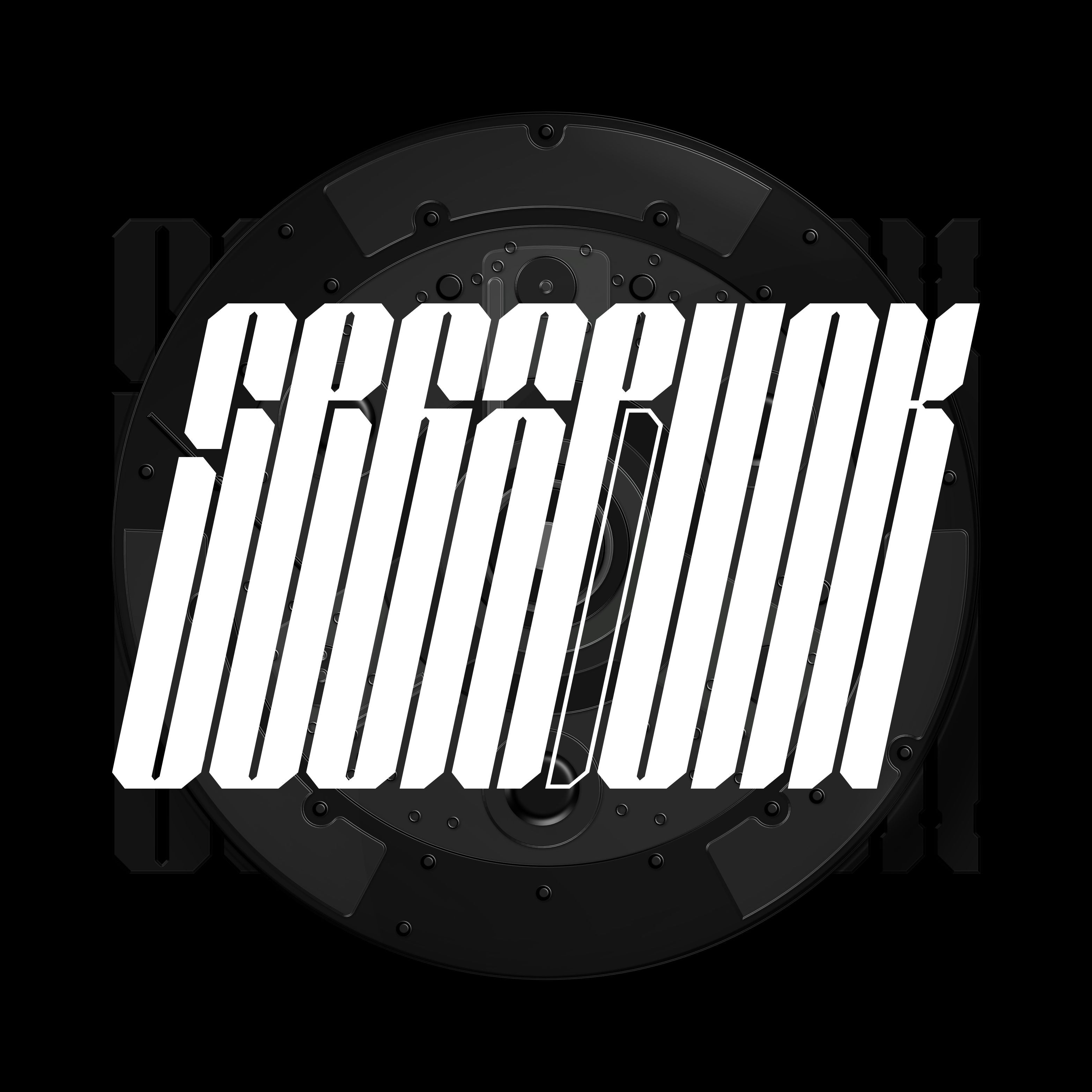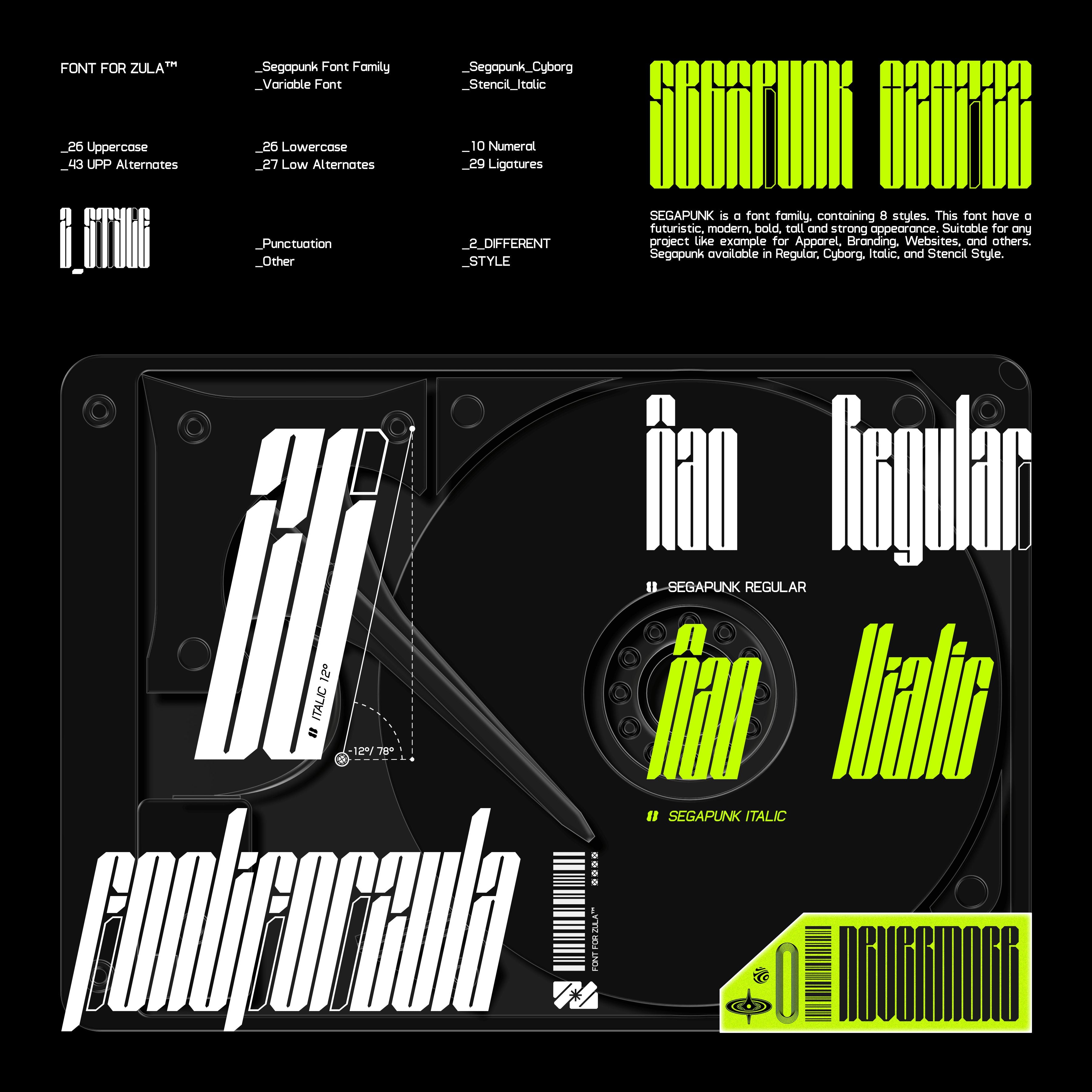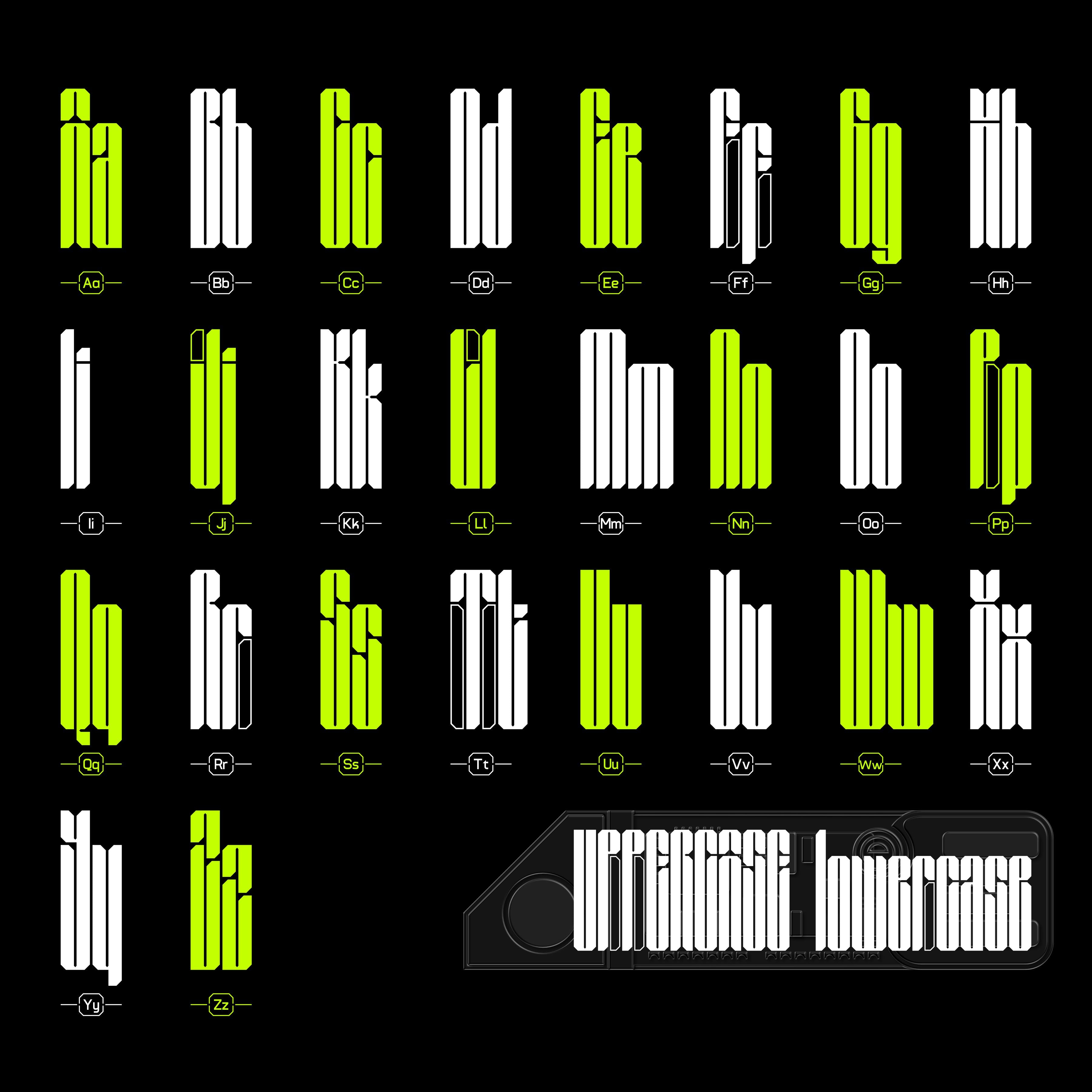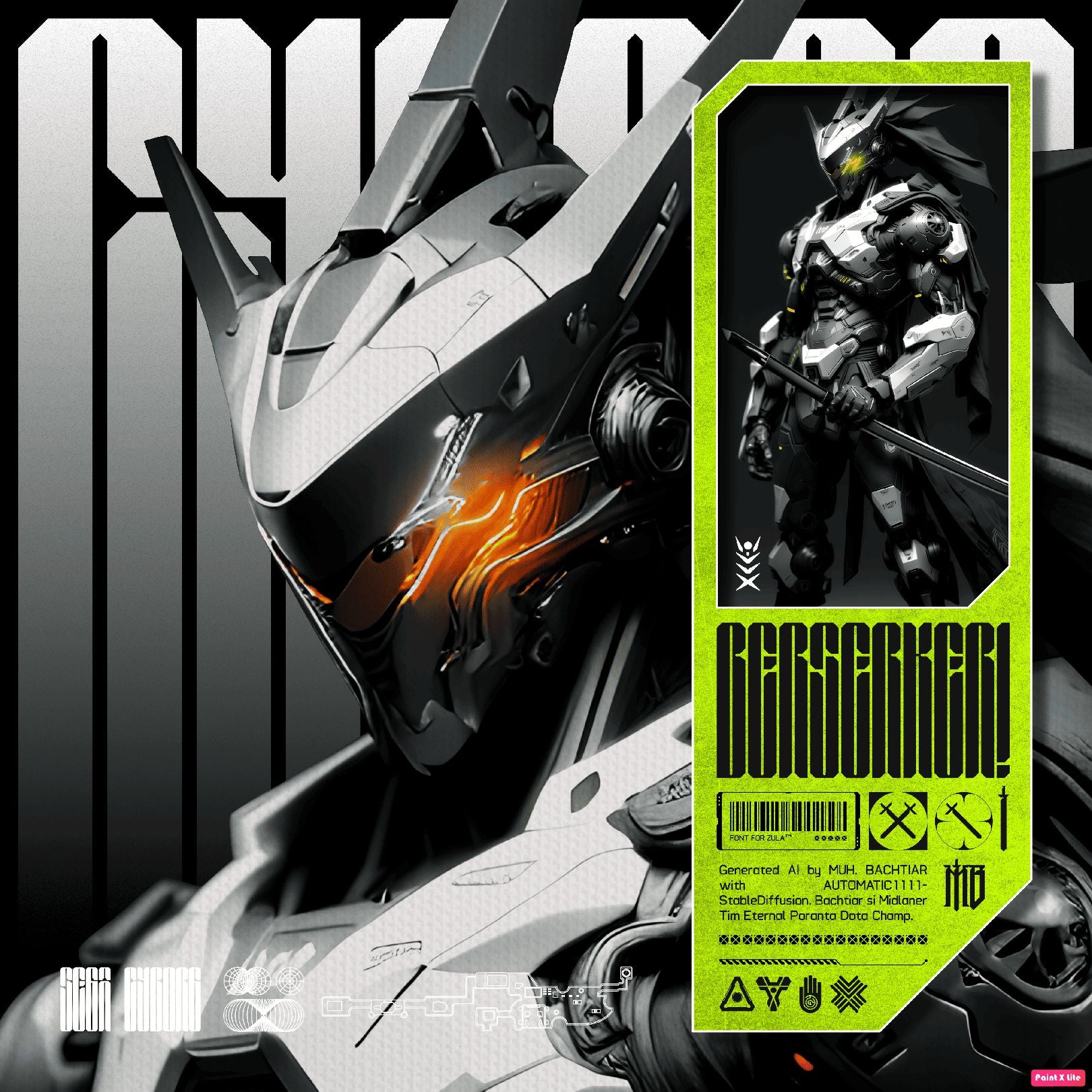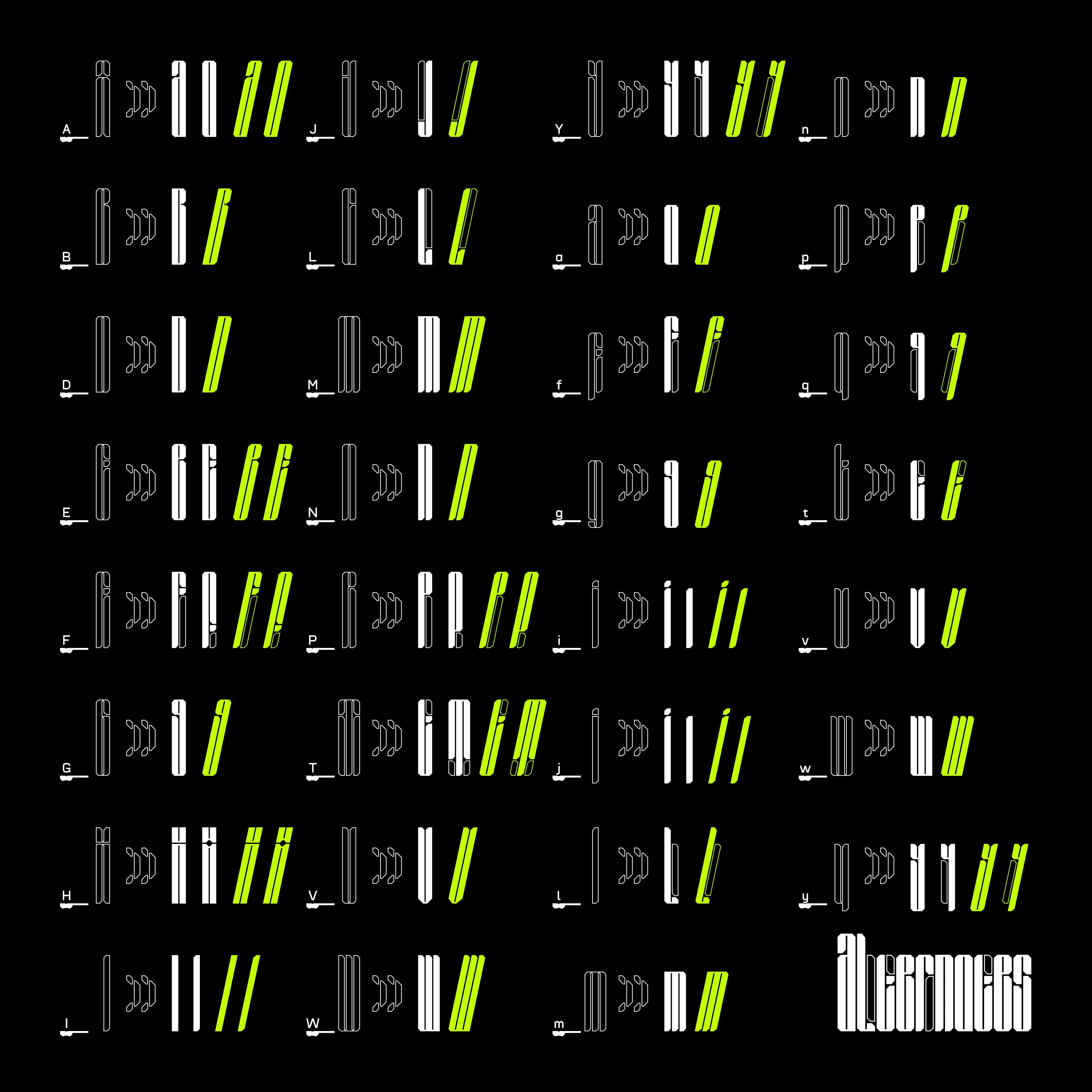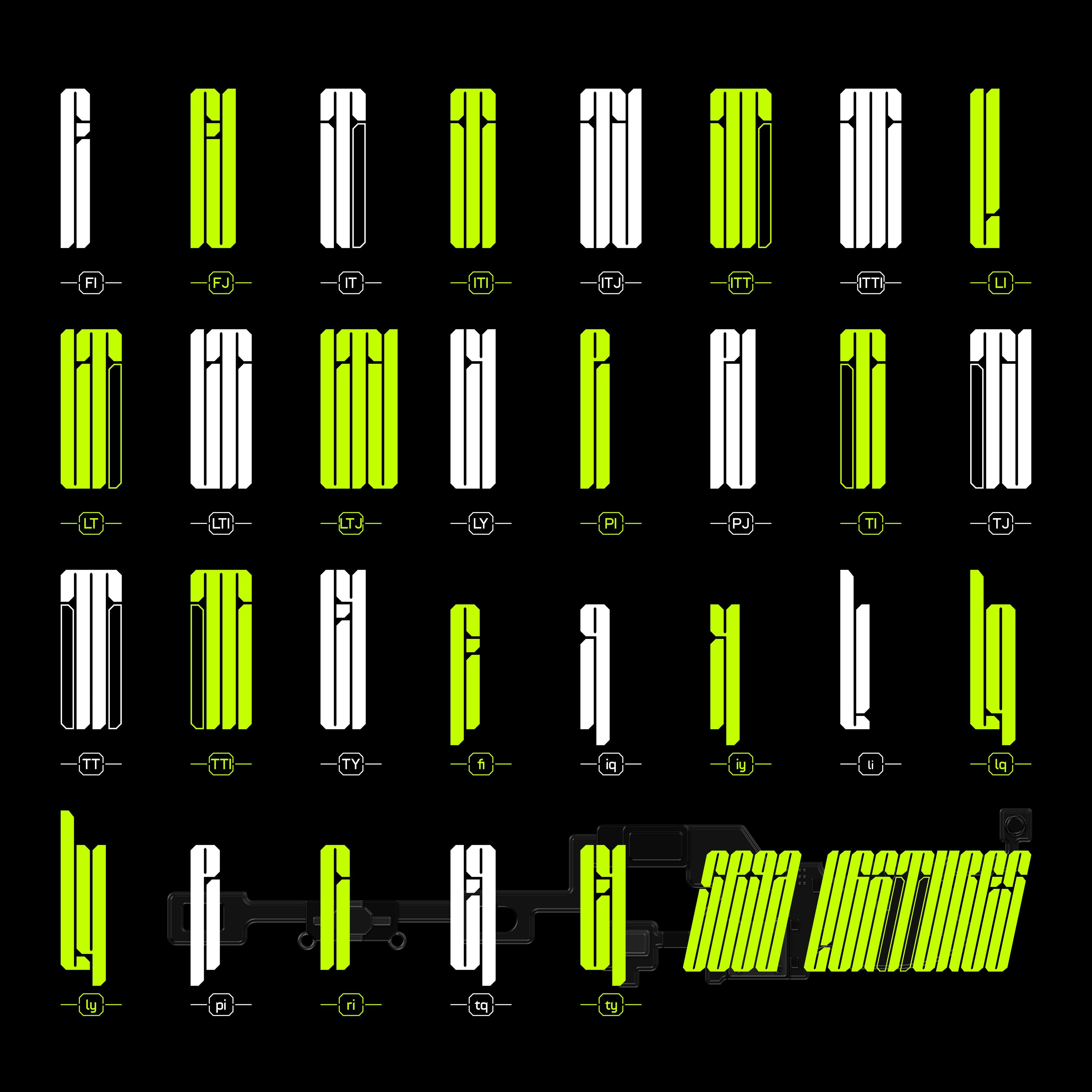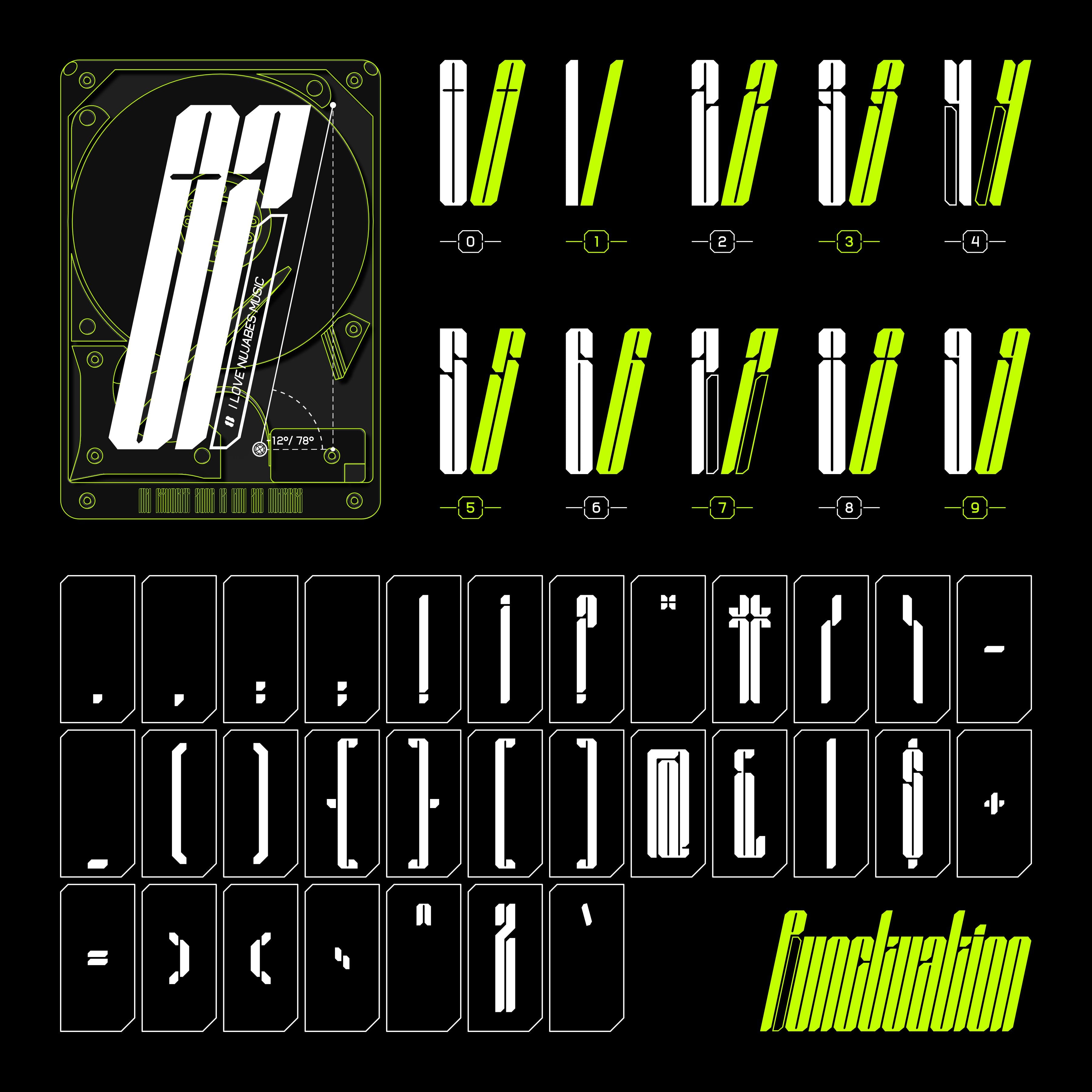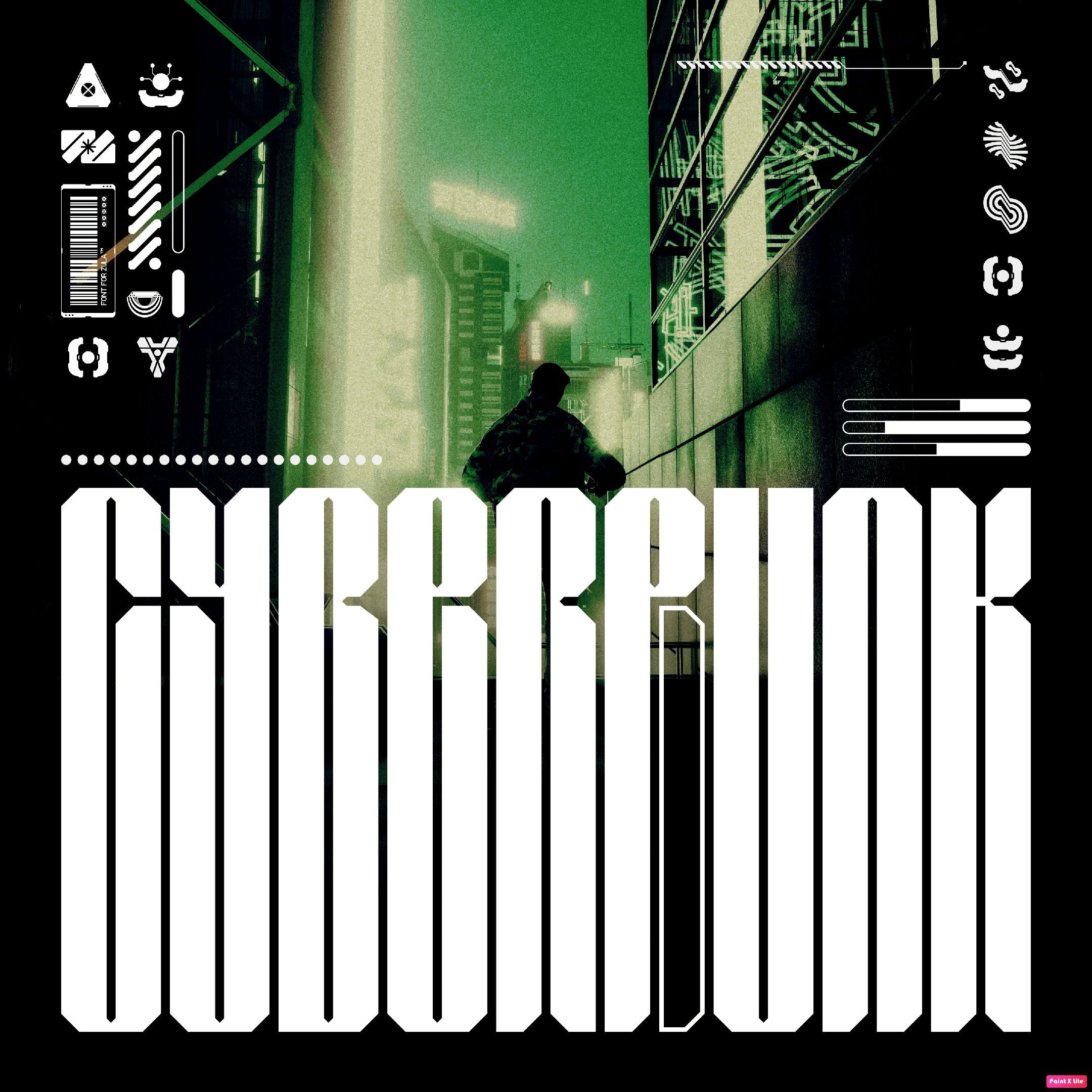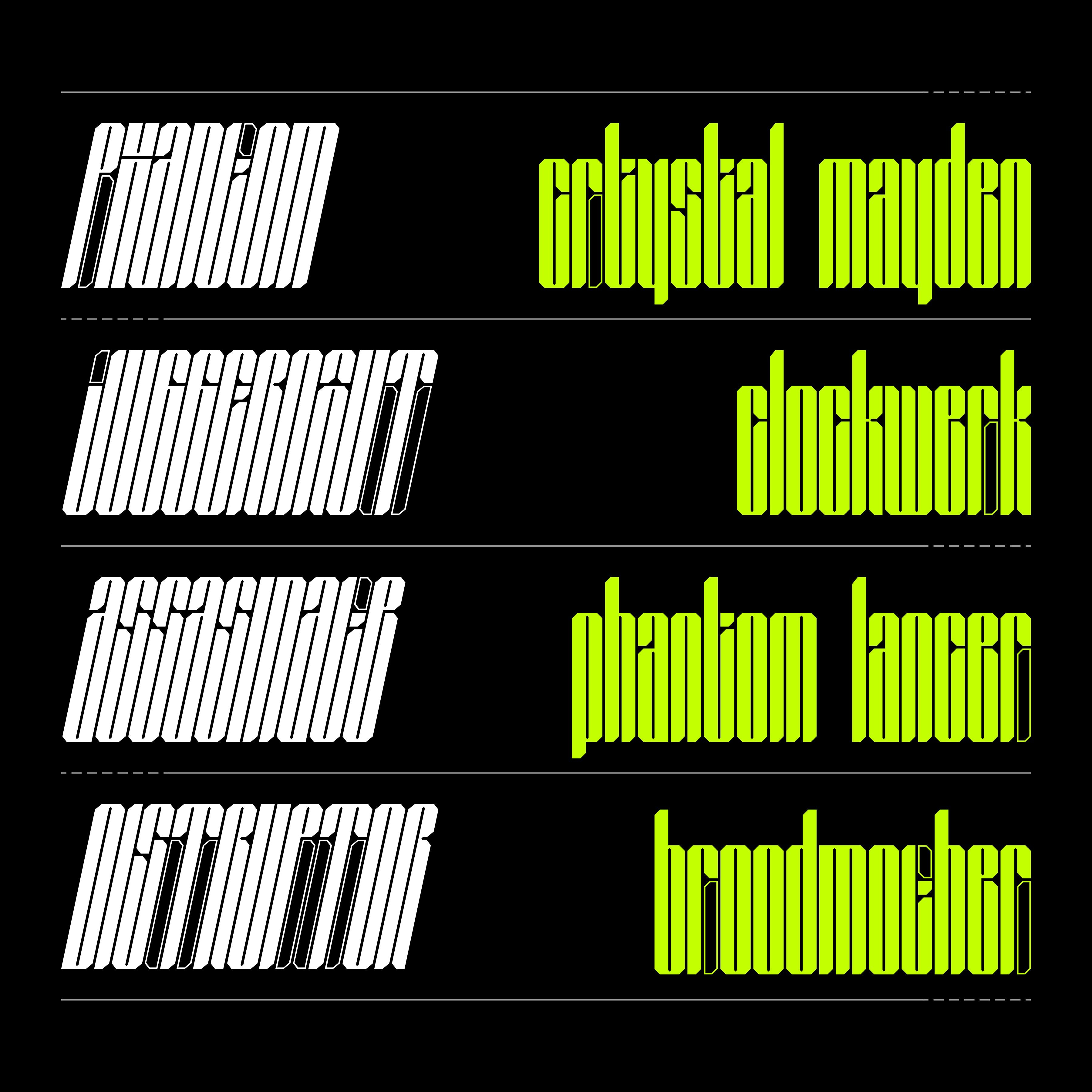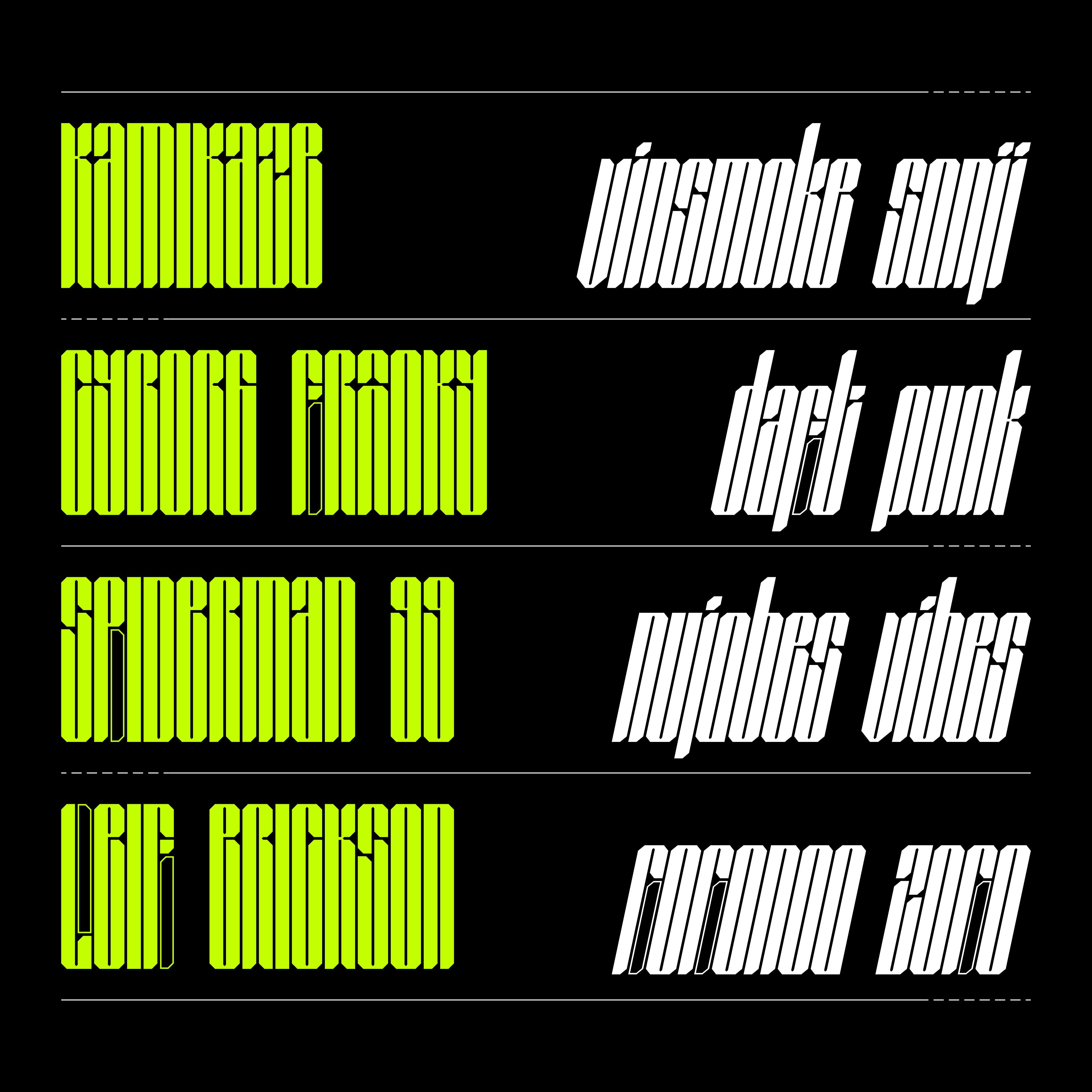
Police SEGAPUNK
The SEGAPUNK Typeface is a bold, modern font with a futuristic aesthetic, available in Regular, Cyborg, Italic, and Stencil Style. It includes a variety of features such as uppercase and lowercase alternates, ligatures, and punctuation, and comes in OTF, TTF, and WOFF formats.
Ideal for futuristic and modern graphic design projects. Perfect for apparel, branding, websites, and display typography, ensuring a bold and unique visual impact.